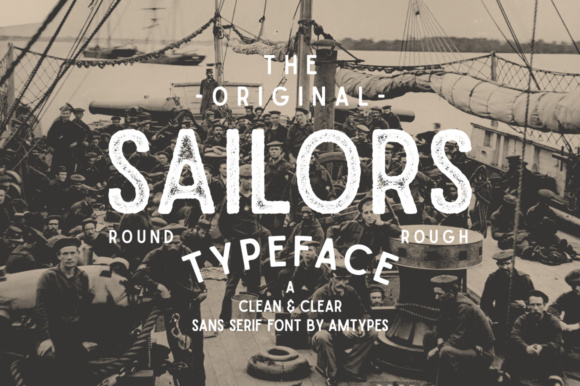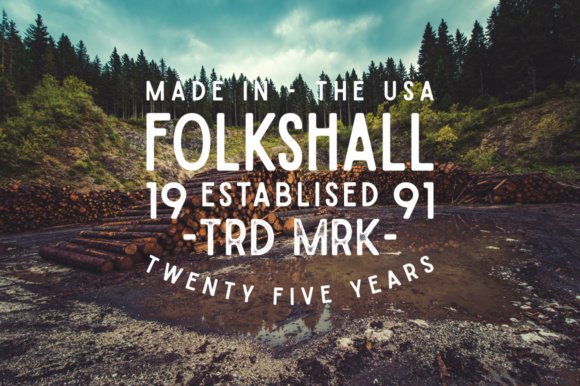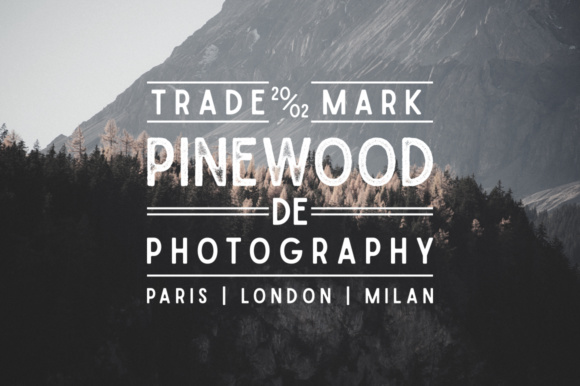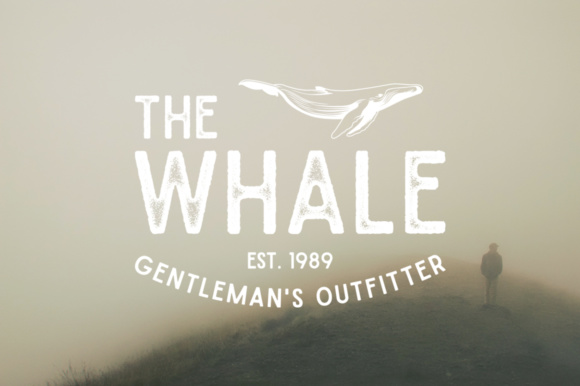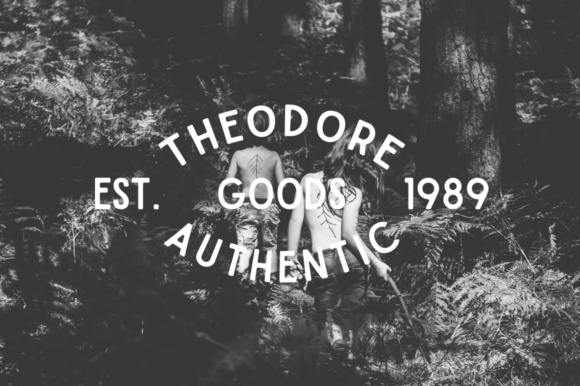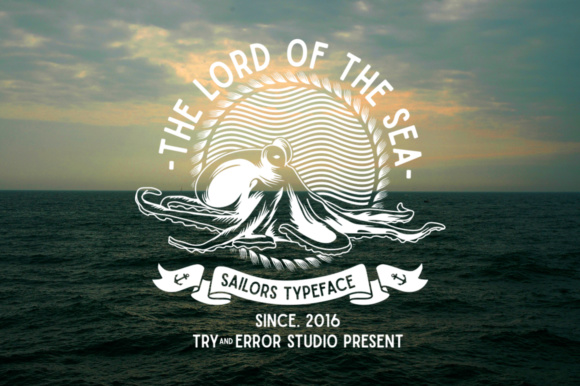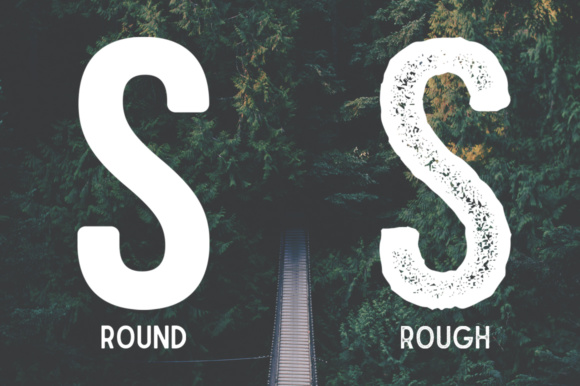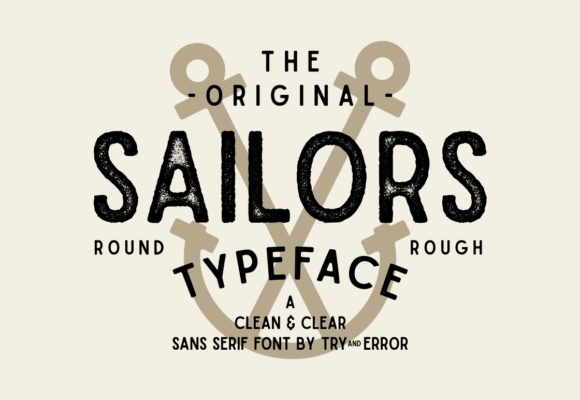
Sailors is a clean, sans serif font that comes in 5 unique styles: Regular, Rough, Condensed, Slant & Condensed Slant.
It’s the perfect font for branding, labeling, vintage designs and much more. Within seconds you can turn your design into a high quality design with a retro look and feel.